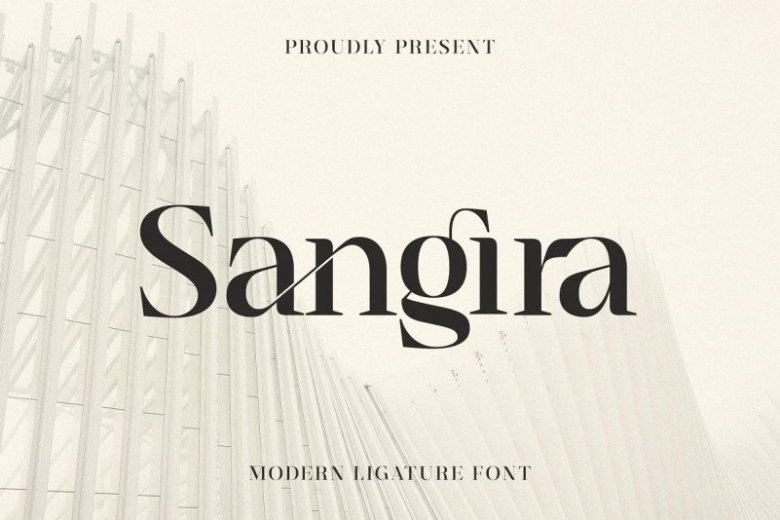
Sangira Font
Sangira Font is a minimalist elegant modern vintage font created by Almarkha Type with beautiful ligatures, tons of special alternative glyphs, ornament and multilingual support. Inspired by the famous minimalist logo, perfect for the purposes of designing templates, brochures, videos, advertising branding, logos and more.